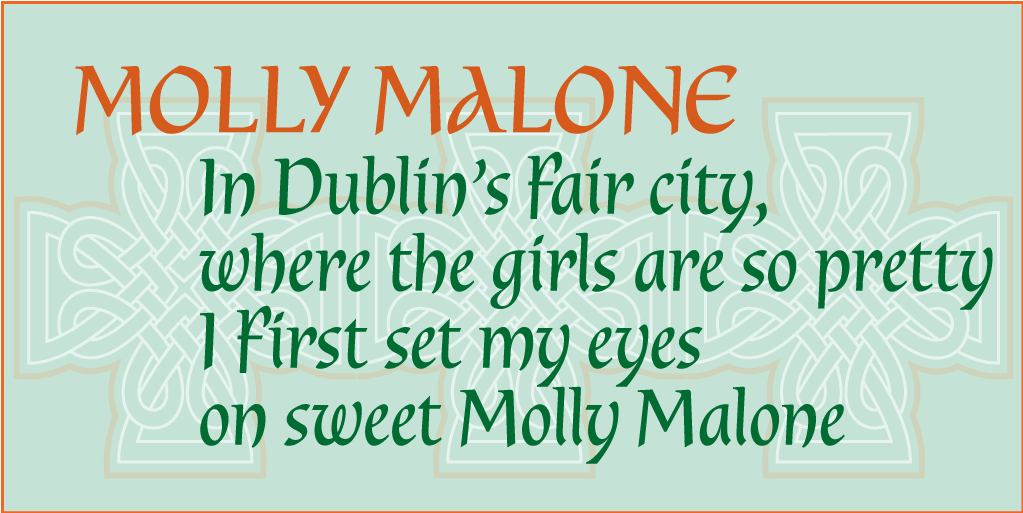
Dublin is a historical font published by Alan Meeks Collection.
Classic Celtic style of lettering with an alternative set of capitals and a few alternative lower case.
Dublin